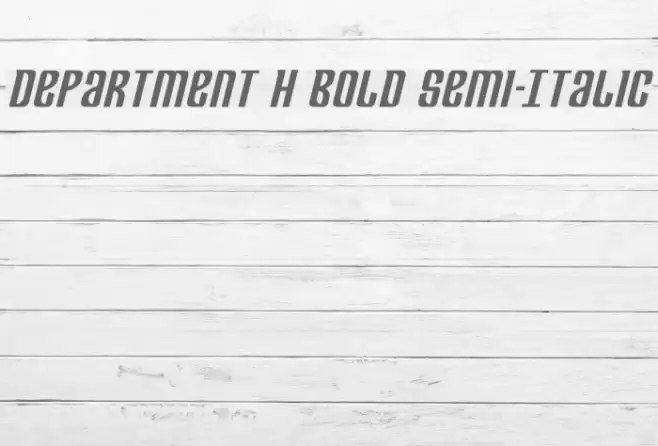
Department H Bold Semi-Italic Font
Department H Bold Semi-Italic Description
This font features a bold and semi-italic style, characterized by its strong and dynamic appearance. The letters are slightly slanted, giving a sense of motion and energy. The strokes are thick and consistent, providing a robust and impactful look. The uppercase and lowercase letters maintain a uniform style, with sharp angles and clean lines. The numerals and special characters are designed to match the boldness and slant of the alphabet, ensuring a cohesive appearance across all characters. This font is ideal for making a statement, with its bold presence and modern aesthetic.
A bold, semi-italic font with a dynamic and modern style from Uncategorized fonts.
- Proposed Projects: Ideal for branding, advertising, headlines, and posters where a strong and energetic presence is desired.